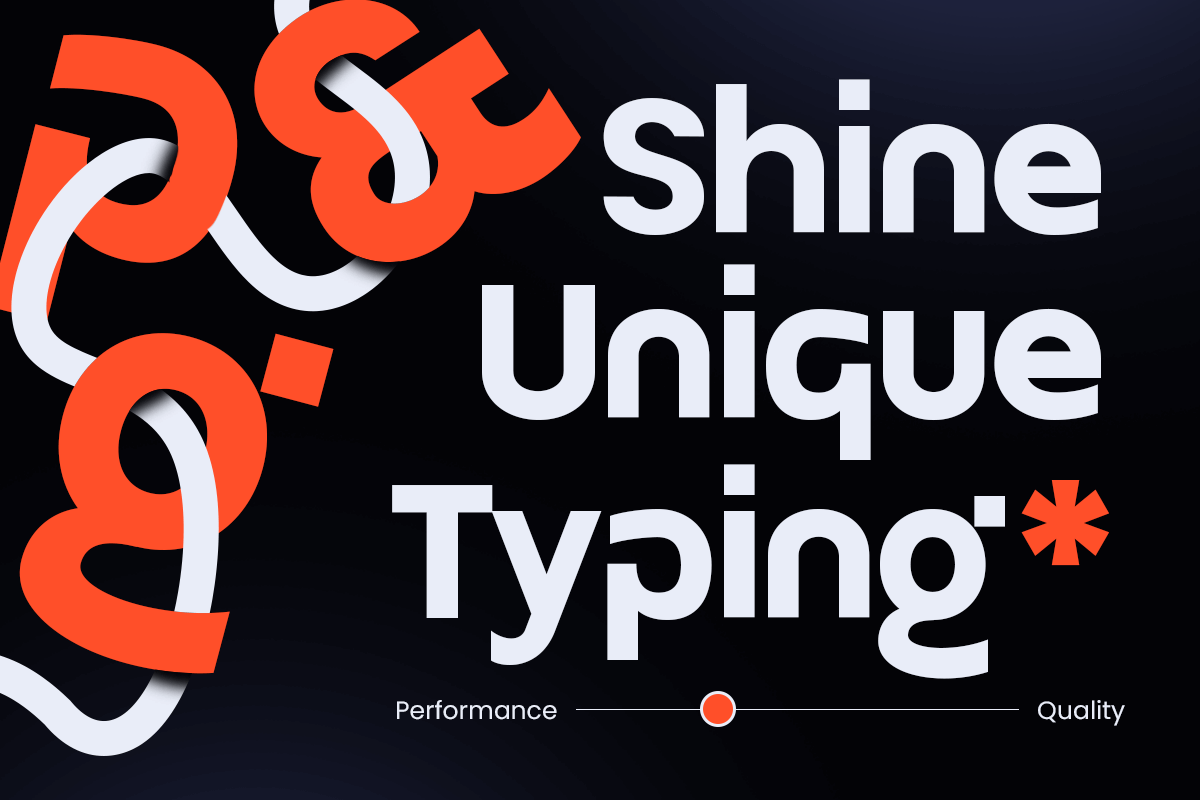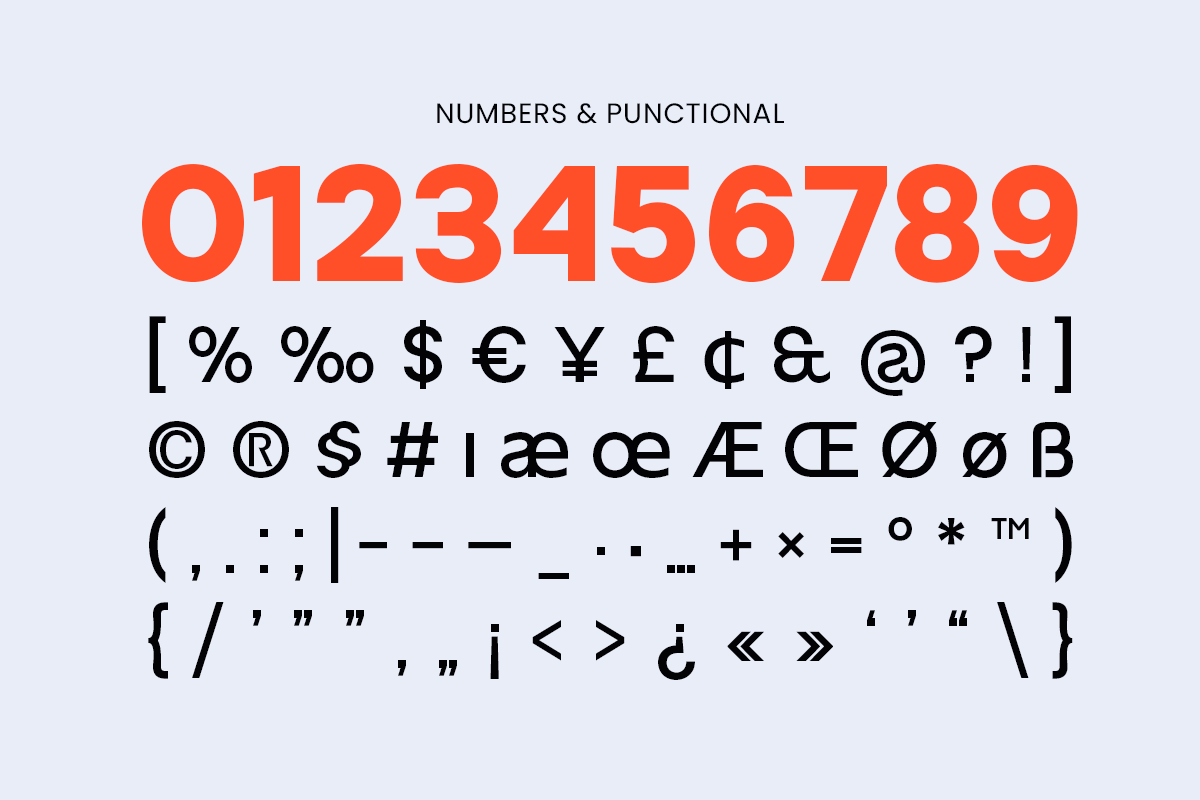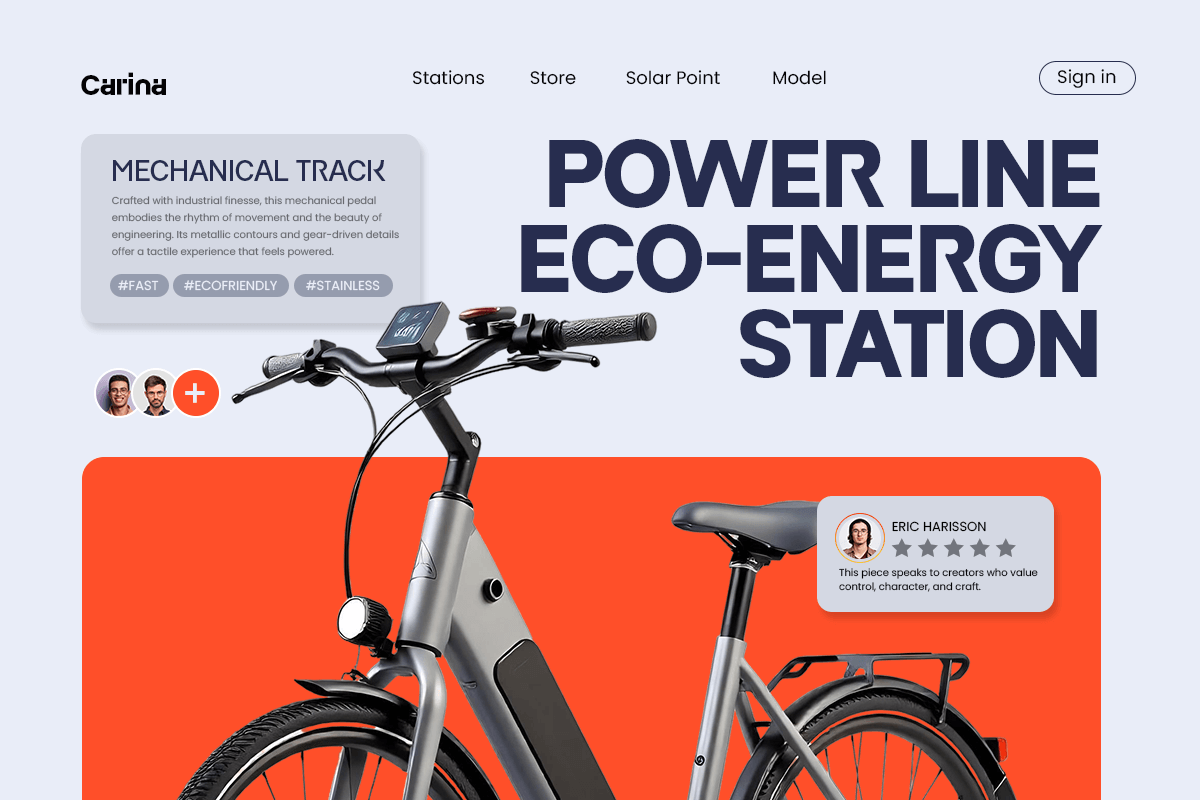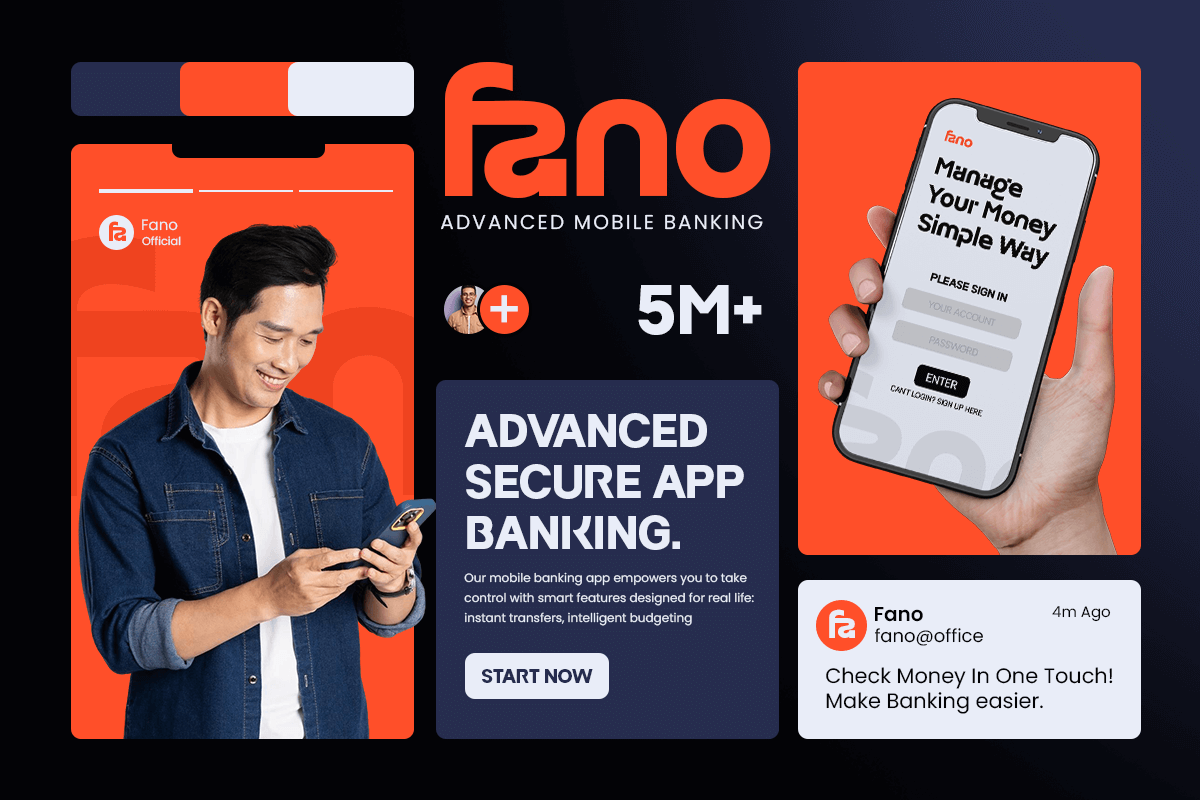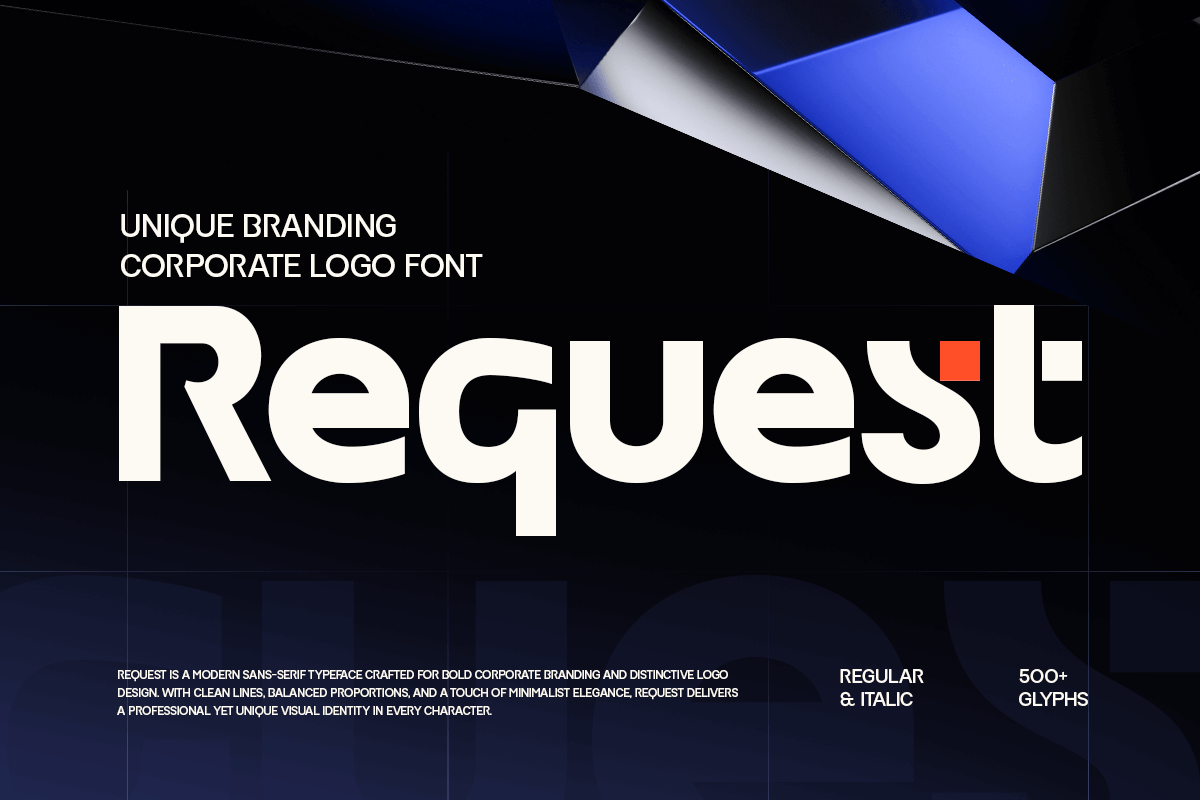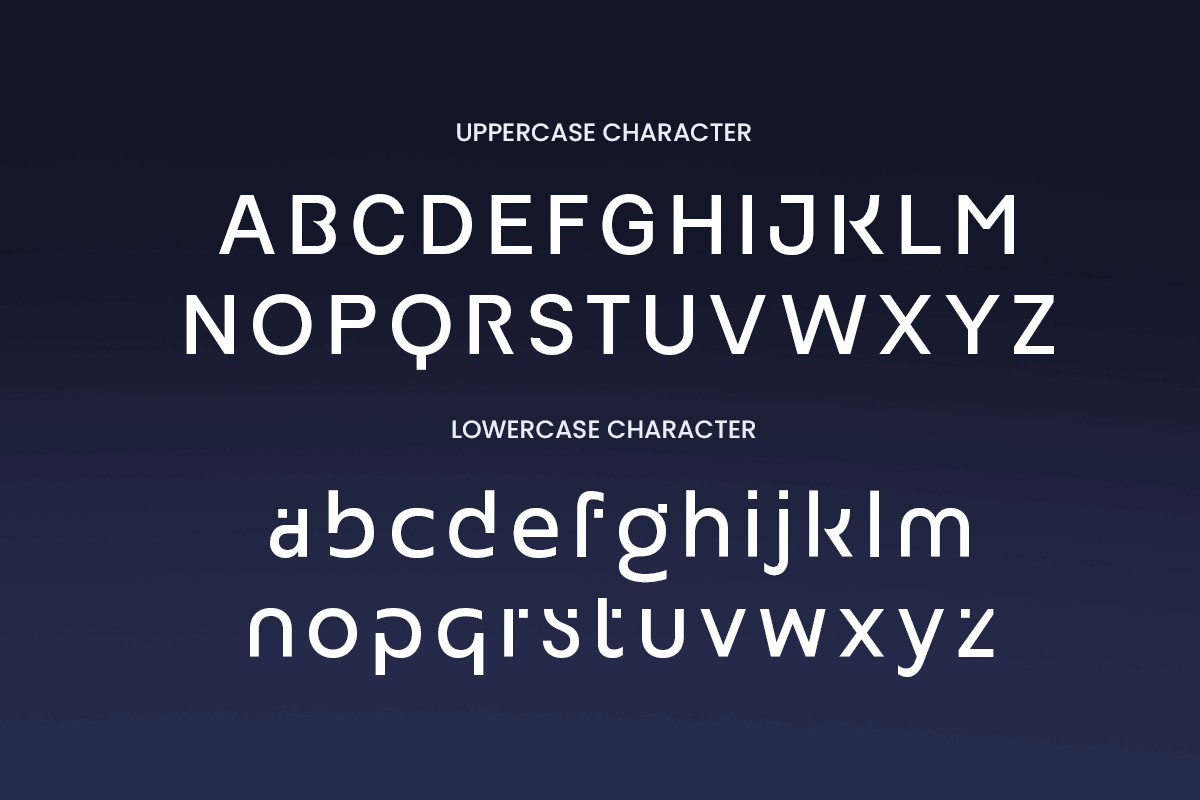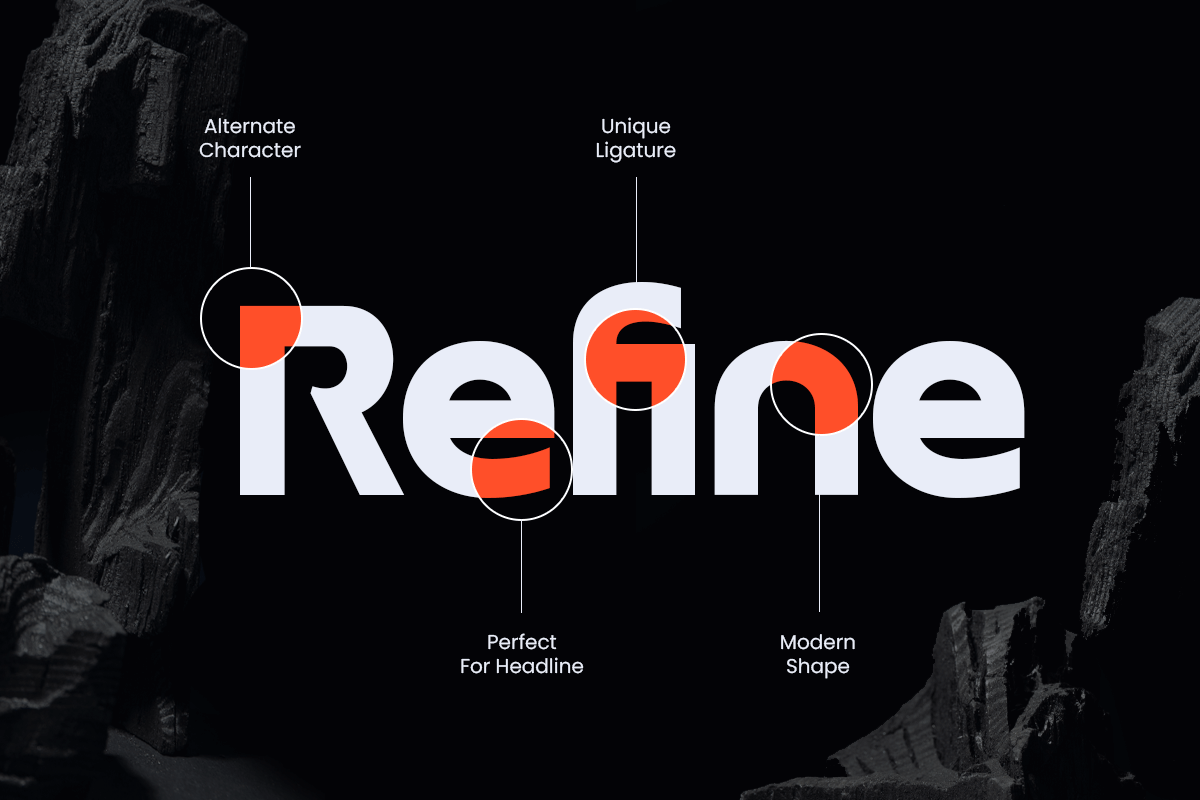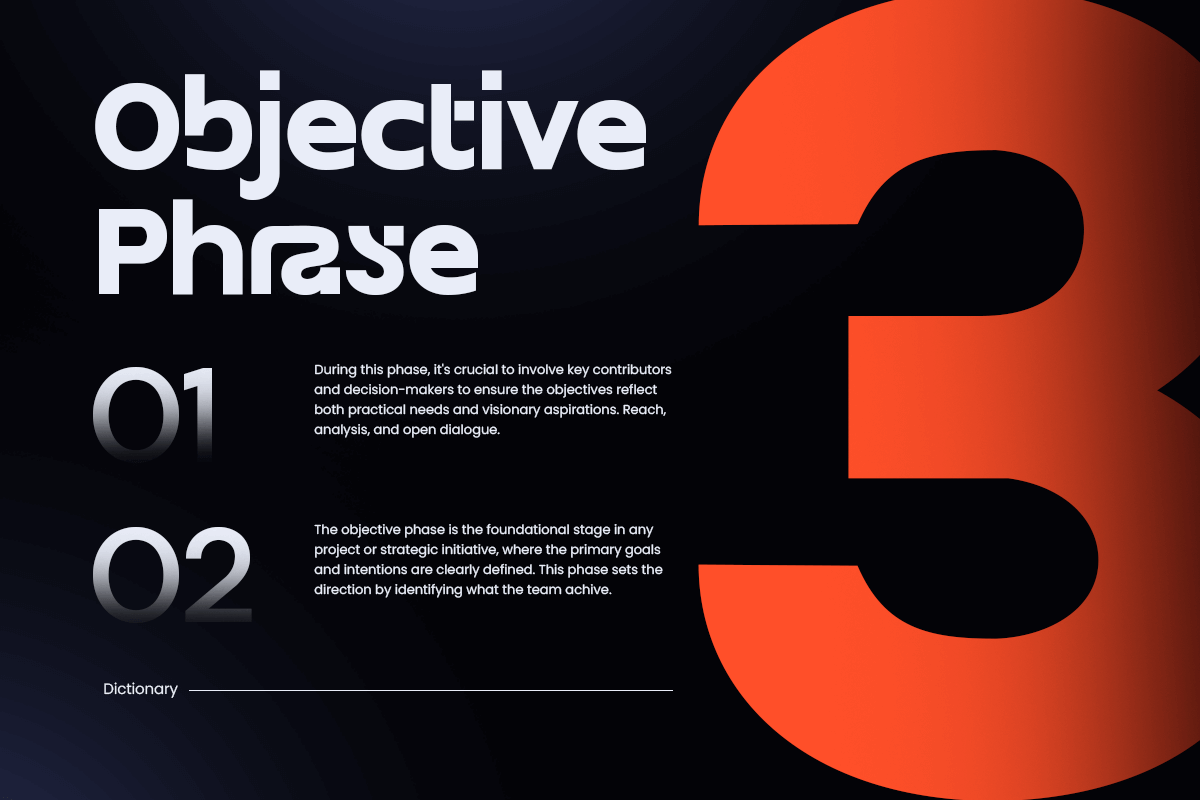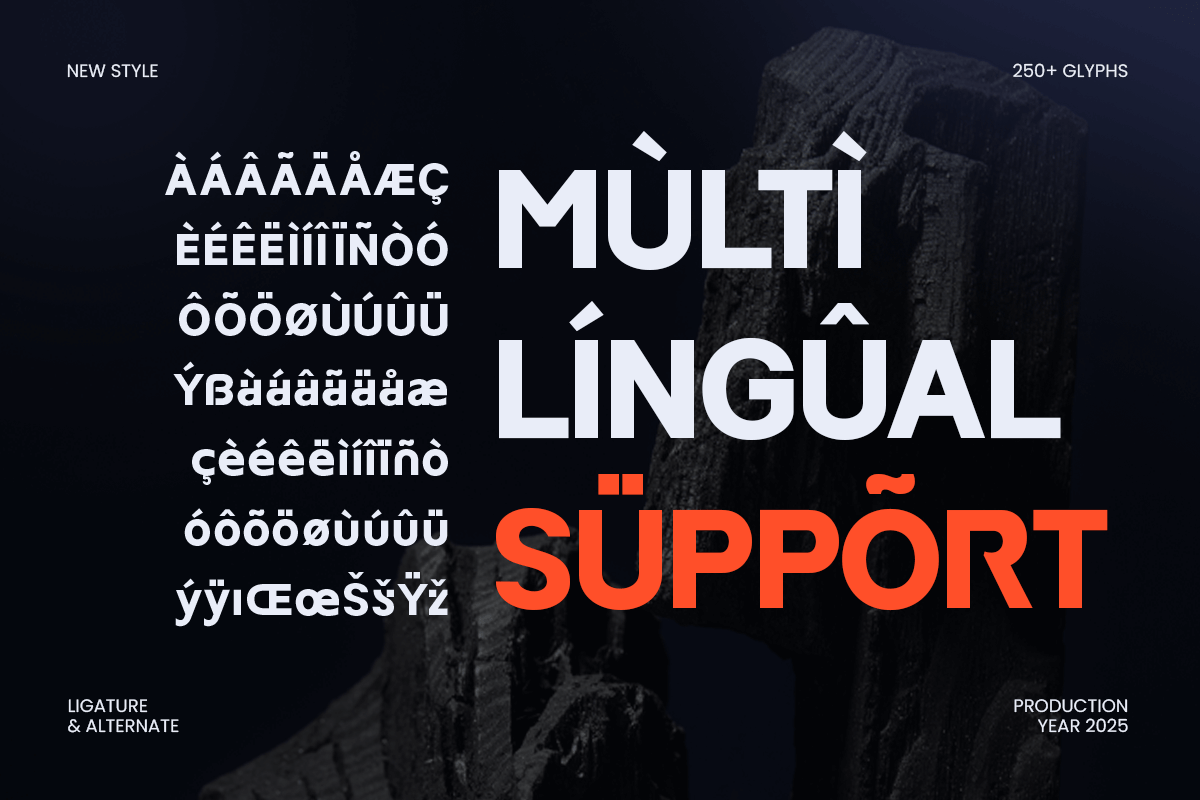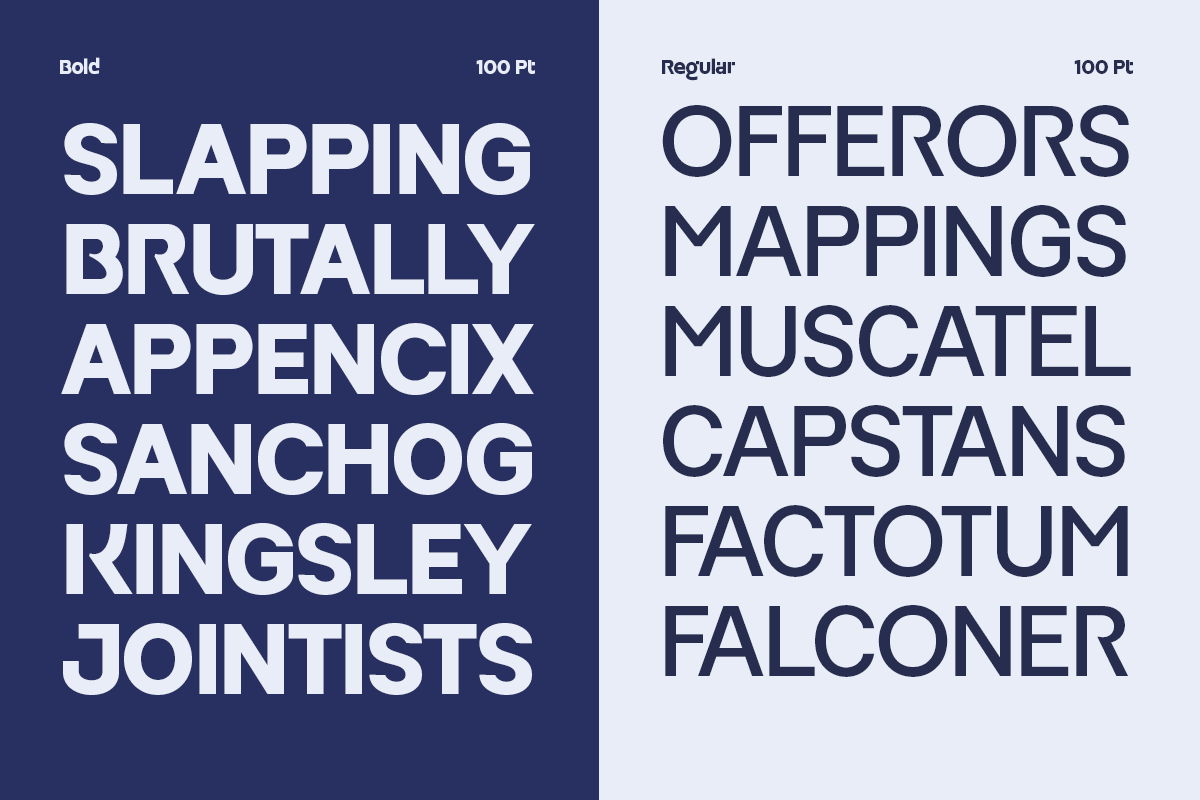
Request - Branding Corporate Font
Request – Unique Branding Corporate Logo Font
Request is a clean and distinctive corporate logo font designed to strengthen professional branding and business identity. With its modern structure, balanced proportions, and subtle uniqueness, Request delivers a confident and trustworthy look ideal for corporate logos, company profiles, presentations, and brand systems.
Designed for clarity and professionalism, Request blends modern aesthetics with timeless corporate appeal. Its refined letterforms ensure excellent readability while maintaining a unique character that helps brands stand out in competitive markets. Perfect for agencies, startups, consultants, and modern enterprises.
Request – Unique Branding Corporate Logo Font Features:
\* Modern corporate style with unique branding character
\* Ideal for logos, business identity, and corporate branding
\* Uppercase, lowercase, numerals, and punctuation included
\* Clean construction with professional spacing
\* Suitable for digital, print, and corporate communication
Build a strong and reliable brand image with Request – the corporate logo font crafted for modern business success.